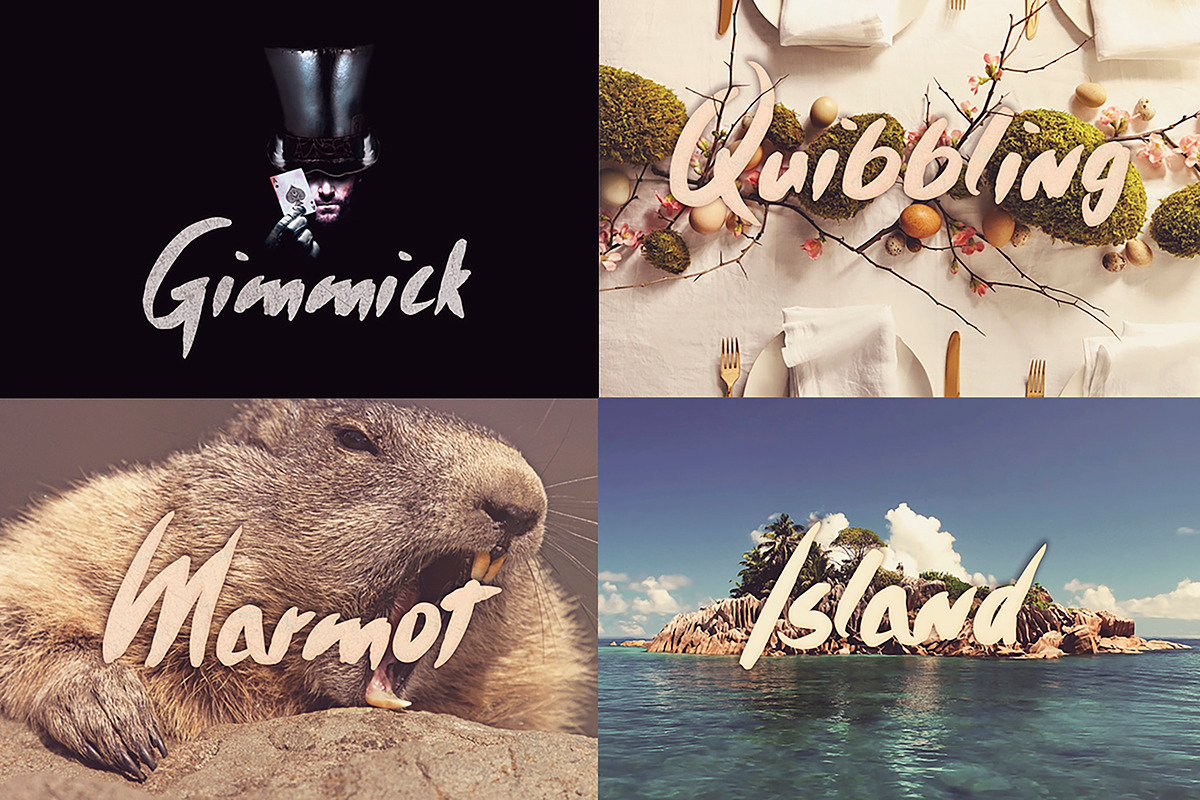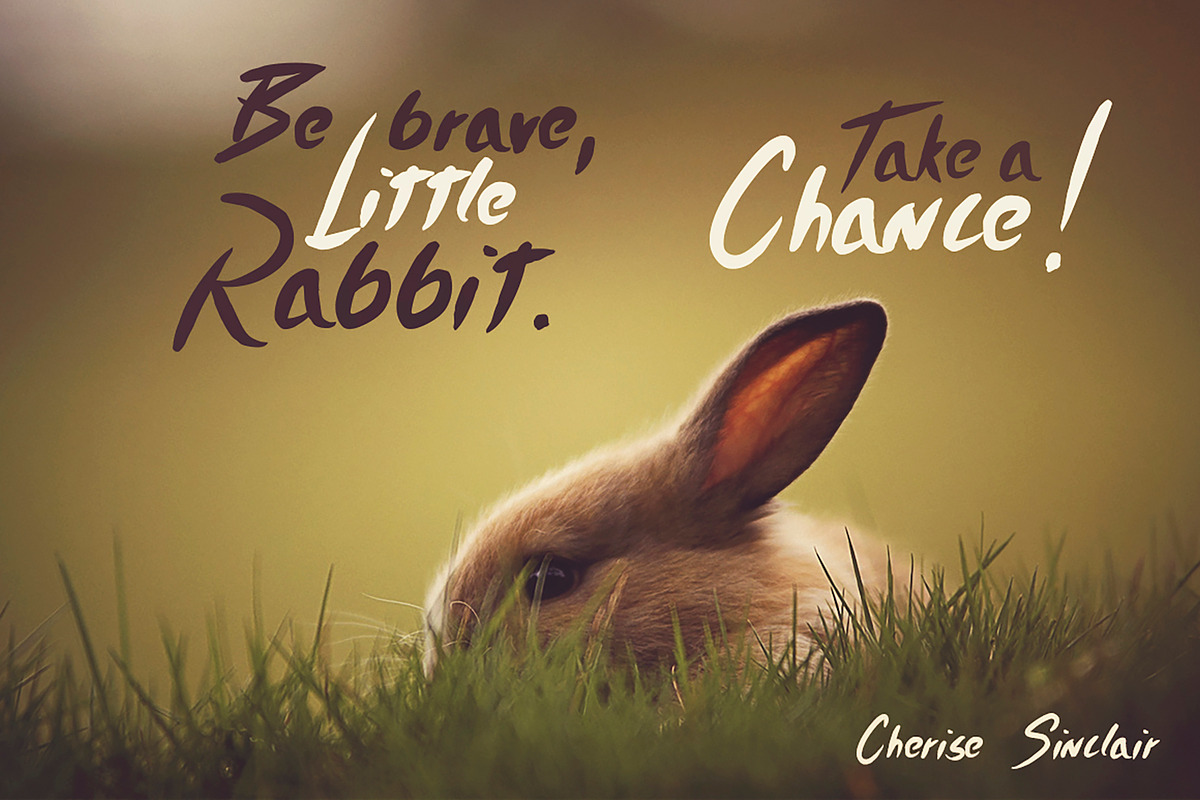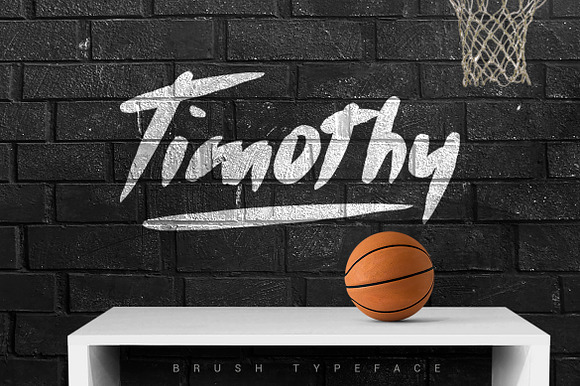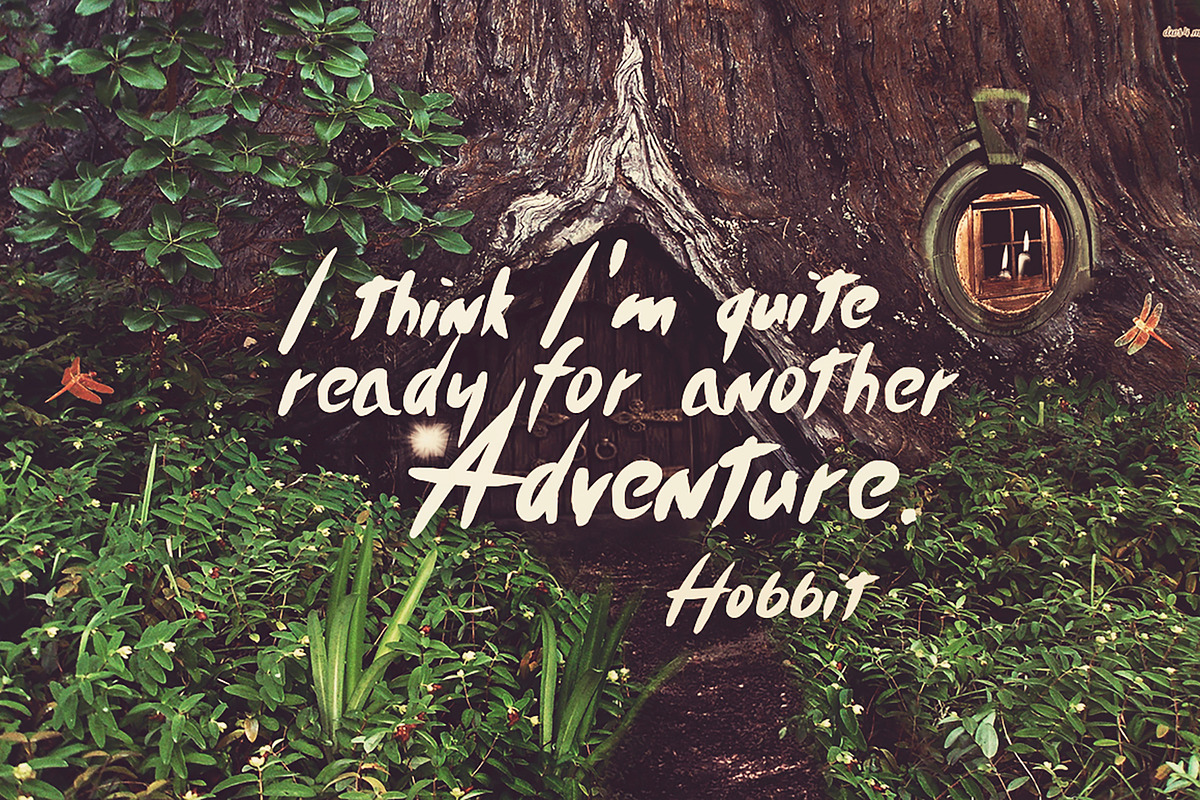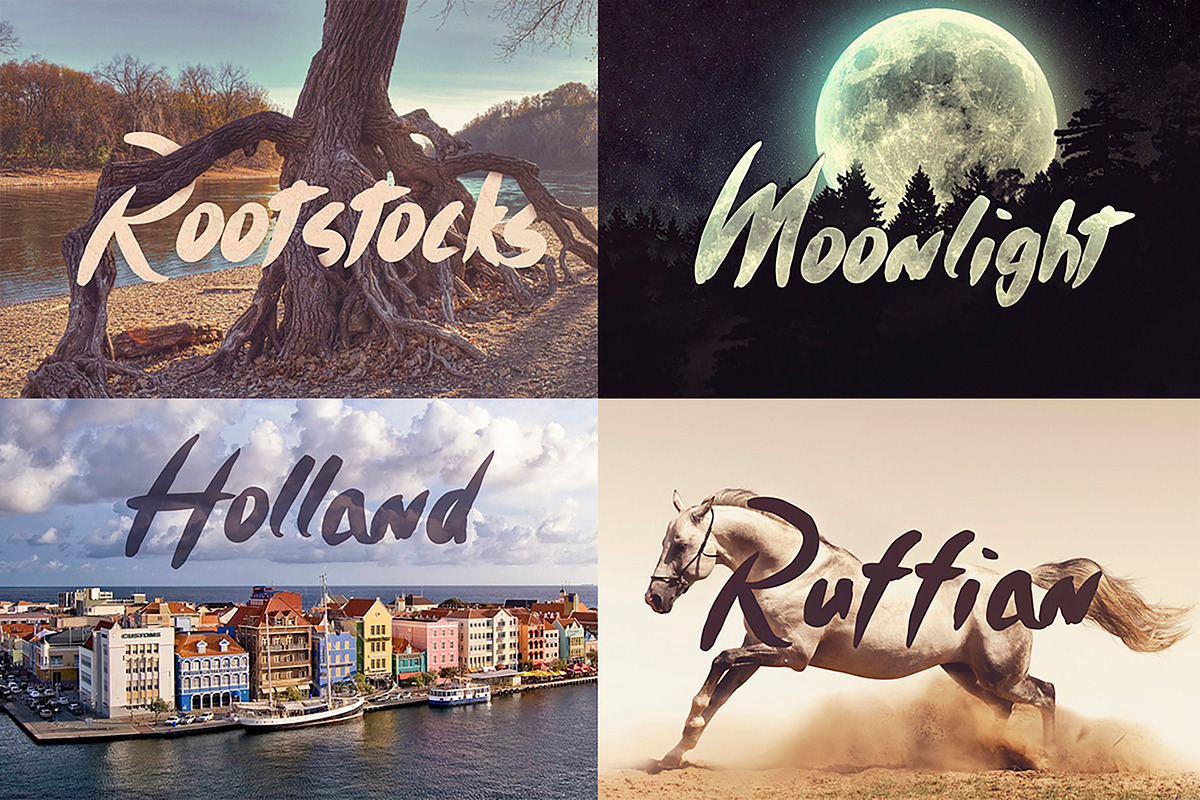
Timothy Font
Timothy is a young handmade brush font family perfect on your titles. All punctuations, extensions, lowercase and uppercase, numbers and webfont.
Languages: Albanian, Basque, Catalan, French, Italian, Polish, Breton, Chamorro, Danish, Dutch, English, Finnish, Frisian, Galician, German, Malagasy, Norwegian, Portuguese, Spanish, Swedish
- Timothy Light
- Timothy Regular
- Timothy Bold